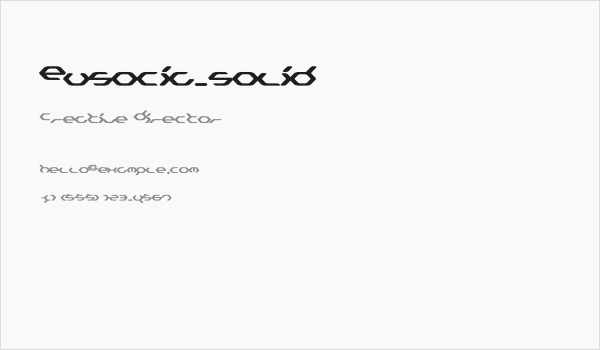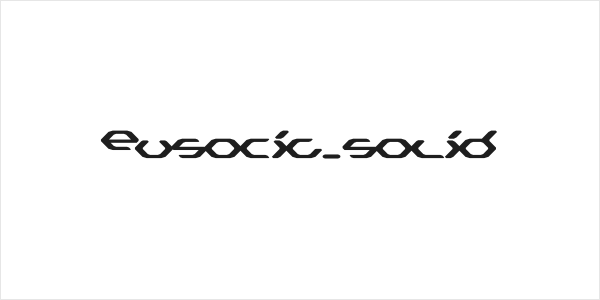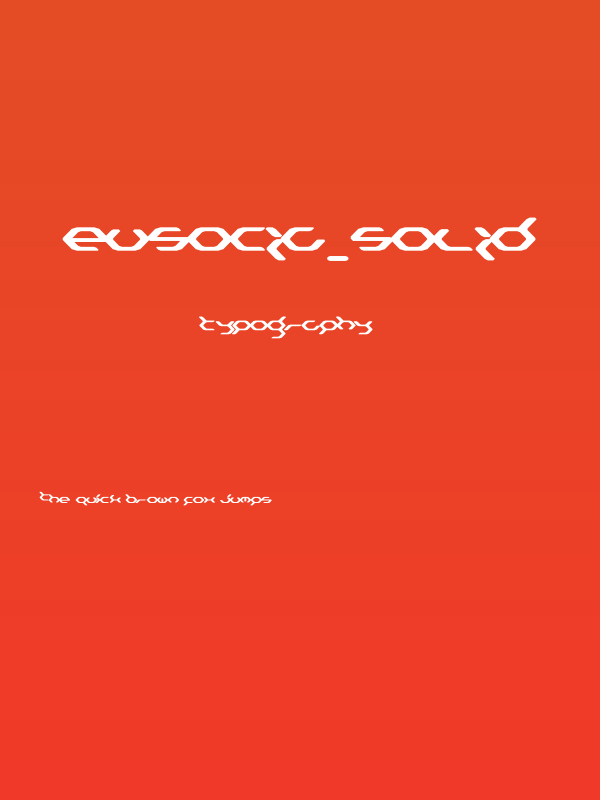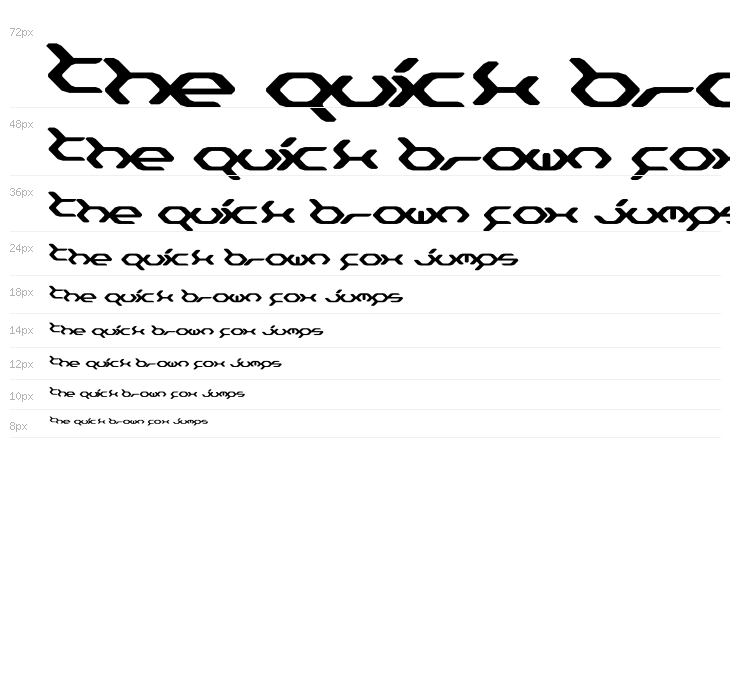
Eusocia_solid Font
Eusocia_solid Description
This font features a futuristic and geometric design, characterized by its interconnected and angular letterforms. Each character is composed of a series of straight lines and sharp angles, creating a sense of movement and modernity. The font's unique style is reminiscent of digital or sci-fi aesthetics, making it stand out with its bold and distinctive appearance. The uniformity in stroke width across all characters adds to its cohesive look, while the angular connections between strokes give it a dynamic and energetic feel.